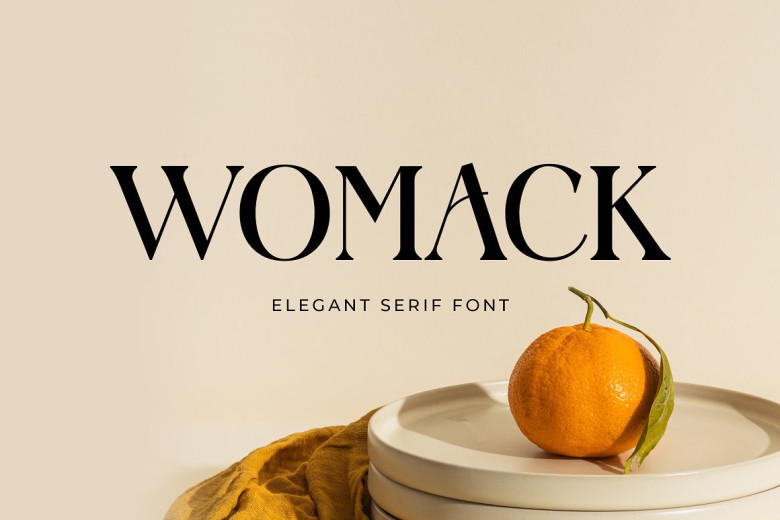
Womack Font
Presenting our new product, Womack Classic Serif Font. Modern Serif font that feels beautiful and modern, and also classy, elegant. This font is ideally suited for a wide variety of projects, such as signature, stationery, logo, wedding invitations can you tell why? Typography quotes on the internet-headlines or body copy, blog titles in magazines or books; website headers (we need them so often now) T-shirt including phrases from our lessons you might want to put it into a better position if you are wearing on your chest branding packaging design and more.
Also, wear the suit that each style embodies: masculine outers of a journeyman mixed with feminine features such as real silk interior lining! The same comes with fashion-related editorial layout.
Womack Serif Font